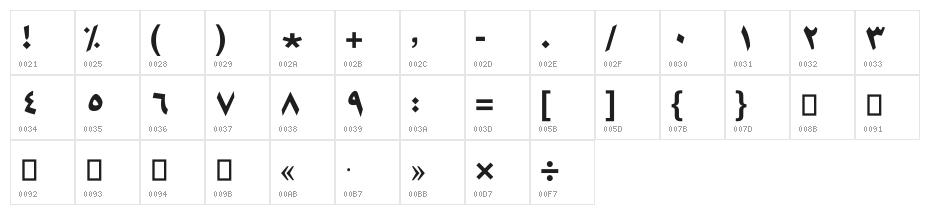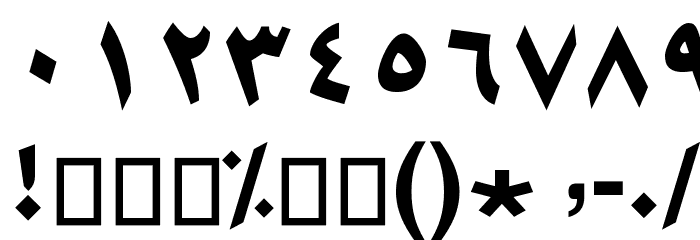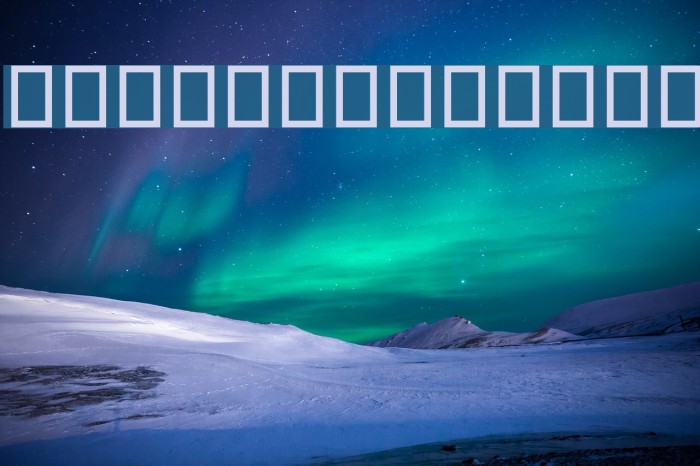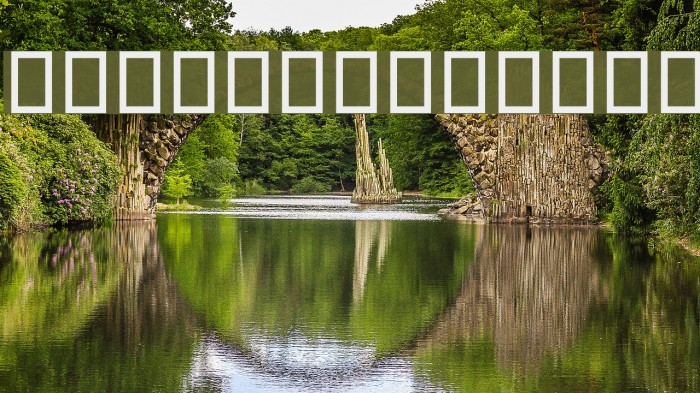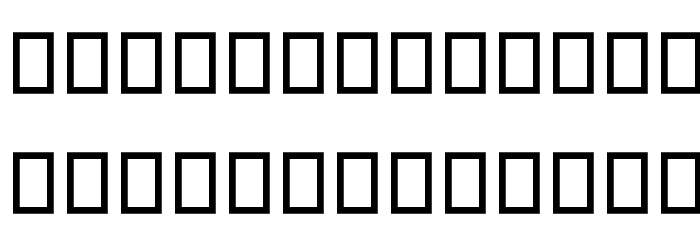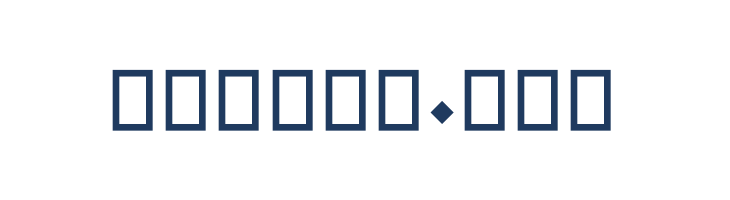
Forugh Font
Forugh Description
This font features a bold and striking design with a unique, angular style that gives it a modern and futuristic appearance. The characters are crafted with sharp edges and a geometric form, making it stand out in any design context. The numbers and special characters maintain the same angular aesthetic, ensuring consistency throughout the font. This font's distinctive look is ideal for projects that require a strong visual impact.
| Proposed Projects | Ideal for branding, posters, video game graphics, and sci-fi themed projects. |